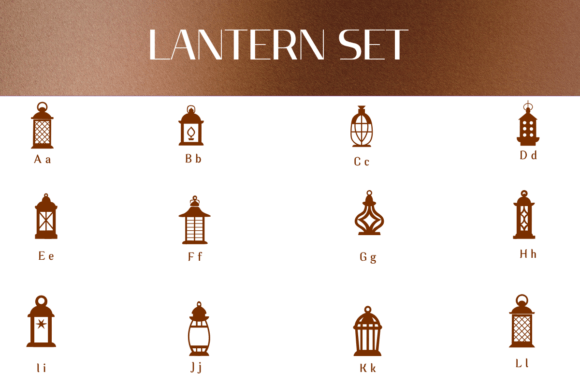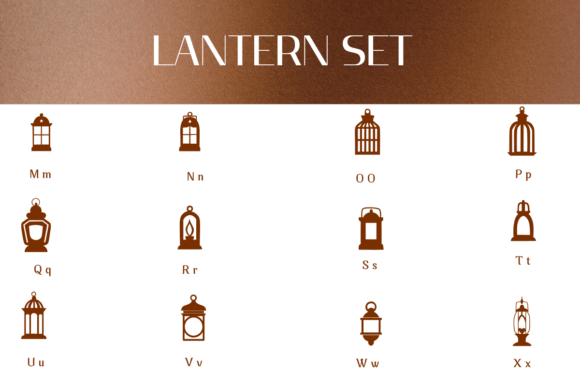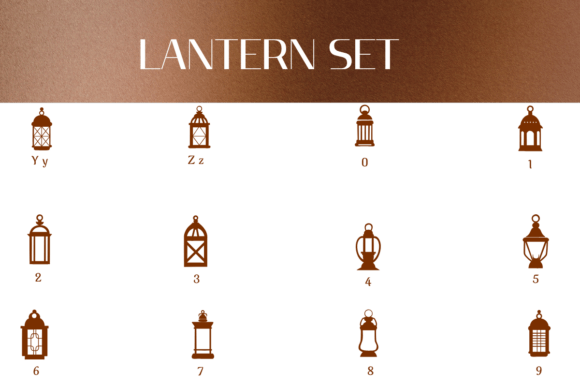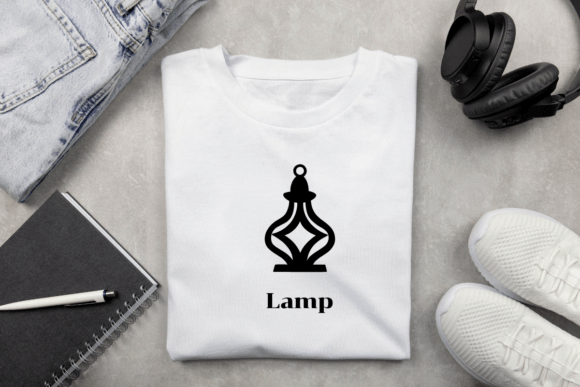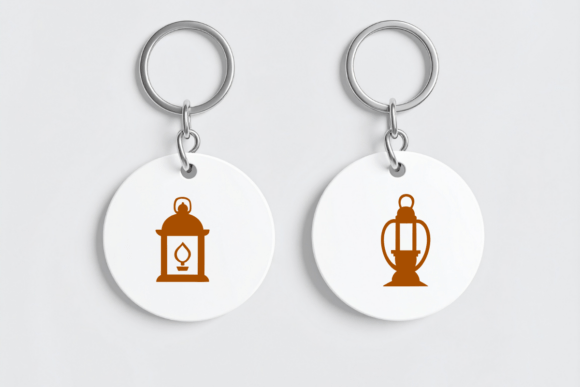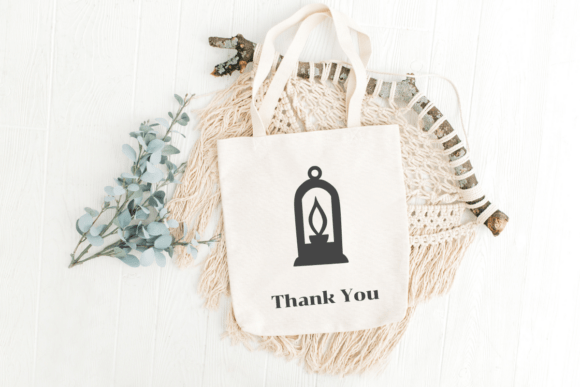
Introduction to Lantern Set Font
Do you remember the moment when a particular design element suddenly sparks an idea for your creative project? For many designers, that moment often comes from discovering a unique and high-quality design resource. I recall stumbling upon a free download of a lantern-themed font that instantly transported me to a cozy summer evening by the lake. The Lantern Set Font had captured the essence of warmth and tradition, and I knew I had to learn more.
As a valuable addition to any designer’s toolkit, the Lantern Set Font is a must-have for those seeking to infuse their designs with a sense of ambiance and invitation. This charming dingbats font offers a diverse collection of hand-drawn lantern silhouettes, from ornate Moroccan lamps to rustic garden lights, making it an ideal choice for independent event planners, cozy cafe branding, and festive holiday invitations.
With its clean vector shapes and rhythmic variety of styles, the Lantern Set Font is poised to illuminate your design projects with a touch of elegance and sophistication. Plus, its transparent background ensures seamless integration with any design. Whether you’re working on a high-impact social media graphic or a creative project requiring a warm and inviting atmosphere, the Lantern Set Font is sure to be a valuable asset in your design arsenal.
Key Features of Lantern Set Font
- High-quality design resource featuring a unique lantern-inspired theme, perfect for creative projects.
- Transparent background allows for easy customization and versatility in design applications.
- Includes a range of lantern designs, each with intricate details and textures, adding depth and visual interest to any project.
- Designed with a high-resolution (300 DPI) for crisp and clear display in various mediums, from print to digital.
- Perfect for designers, artists, and creatives working on a variety of projects, from branding and marketing materials to digital art and illustrations.
Honest Review: Lantern Set Font
I recently had the chance to work with the Lantern Set Font, and I must say it’s been a game-changer for my creative projects. The high-quality design is perfect for anyone looking to add a touch of elegance to their work.
- ✨ The transparent background option gives me the flexibility to place the font on any background image or color, without worrying about distractions.
- ✨ The font is incredibly versatile, suitable for a wide range of creative projects, from weddings to corporate events.
While the Lantern Set Font is an excellent addition to any designer’s toolkit, there are a few limitations to consider:
- ⚠️ The font only comes in a few different styles, which may limit its use in projects where a wide range of font options are needed.
- ⚠️ Some users may find the font to be a bit too ornate for certain types of projects.
Overall, I’m thoroughly impressed with the Lantern Set Font. Its high-quality design and free download option make it a must-have for any designer working on a creative project. While there are some limitations to consider, I believe the benefits far outweigh the drawbacks.
Lantern Set Font
Introduction to Lantern Set Font
Lantern Set Font is a high-quality design resource ideal for creative projects. This font offers a unique and elegant style that can elevate your designs. With a transparent background, it’s perfect for various design applications.
Download the Lantern Set Font and upload it to Canva. Use it in your designs, such as creating invitations, posters, or social media graphics. The font’s elegant style will add a touch of sophistication to your designs.
Import the Lantern Set Font into Adobe Photoshop or Illustrator. Use it in your creative projects, such as designing a logo, creating a brochure, or developing a marketing campaign.
Insert the Lantern Set Font into your PowerPoint presentation or Word document. Use it to create engaging slides, presentations, or reports.
Experiment with different font sizes, colors, and styles to create unique and eye-catching designs. Combine the Lantern Set Font with other design elements to create a visually appealing effect.
Common Use Cases for Lantern Set Font
Use the Lantern Set Font for various creative projects, such as:
Corporate branding and marketing materials
Social media graphics and advertising
How do I edit the Lantern Set Font icons?
The Lantern Set Font icons are provided in vector format (SVG), which allows for easy editing using design software like Adobe Illustrator. You can resize, recolor, and reposition the icons to suit your design needs. Additionally, you can use online tools or software like Canva to edit the icons, although the level of customization may be limited compared to using a dedicated design program.